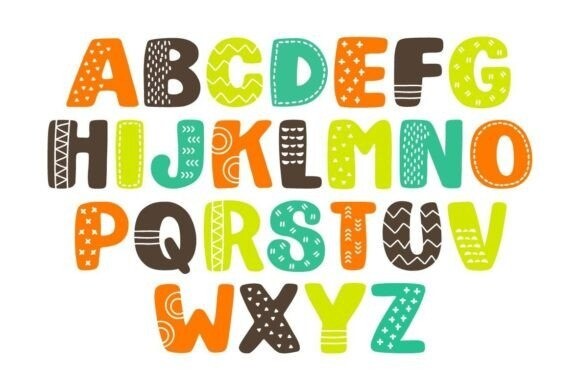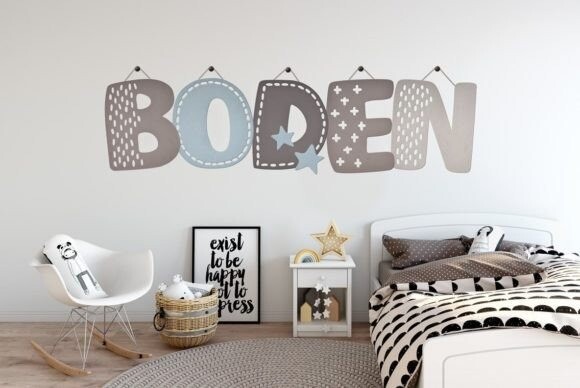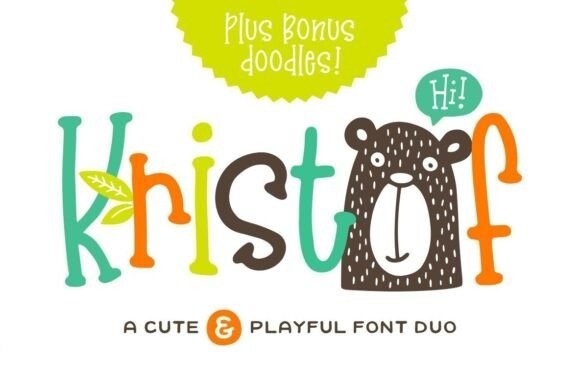
Kristof Font
Kristof Font, An adorable duo that combines a thin, bouncy font with bold, patterned letters. Also included are a set of super cute nature-themed doodles to enhance your designs.